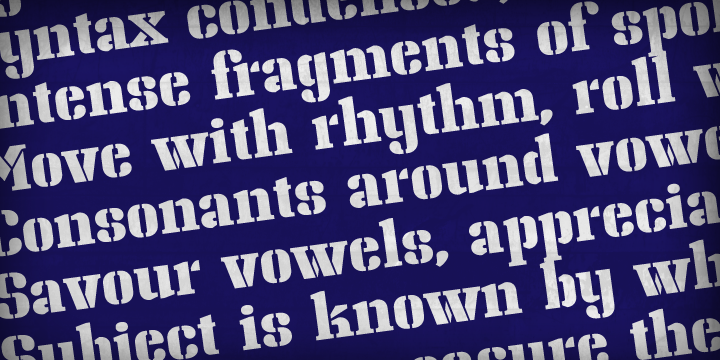
This stencil font is capable of making your typographic statement undeniable.
FR Sniccer includes several OpenType features like case fractions and extended ligature set automatically working in any OT-savvy application - with support for many languages (Nordic, Icelandic, West and Eastern Europian, Turkish etc.).
Use it anytime, anywhere and be sure your message will reach its audience.